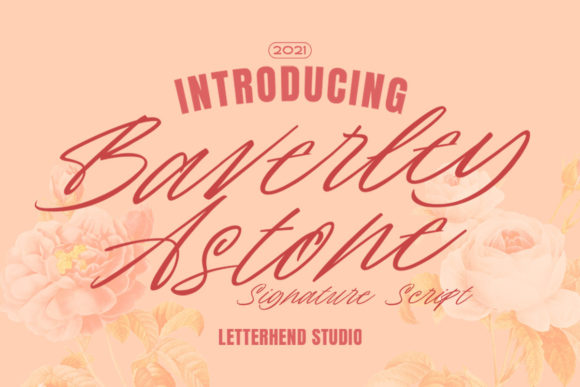
Behold, Baverley Astone, the captivating script font, a creation of letterhend, awaits your command. With its intricate details and elegant strokes, this font is a visual masterpiece, ready to transform your digital creations into works of art.
Immerse yourself in the world of Baverley Astone, a font that exudes sophistication and charm. Its carefully crafted curves and flourishes are reminiscent of a handwritten signature, lending a personal touch to your designs. With its timeless appeal, this font is perfect for adding a touch of class to any project, from personal invitations to professional presentations.
Unleash your creativity with Baverley Astone, a versatile font that adapts effortlessly to a wide range of design styles. Whether you're crafting eye-catching logos, designing stunning social media graphics, or creating beautiful website layouts, this font will elevate your work to new heights. Its versatility knows no bounds, allowing you to express your unique style and make a lasting impression.
Step into the spotlight with Baverley Astone, the font that commands attention. Its distinctive characters and graceful lines will make your words shine, captivating your audience and leaving them spellbound. Ideal for crafting unforgettable headlines, captivating titles, and mesmerizing branding elements, this font will ensure that your message is seen, heard, and remembered.
Experience the allure of Baverley Astone, a font that speaks to the heart. Its refined strokes and delicate details evoke a sense of elegance and luxury, adding a touch of magic to your designs. Whether you're creating enchanting invitations, designing luxurious packaging, or crafting heartfelt letters, this font will infuse your creations with a sense of wonder and captivation.